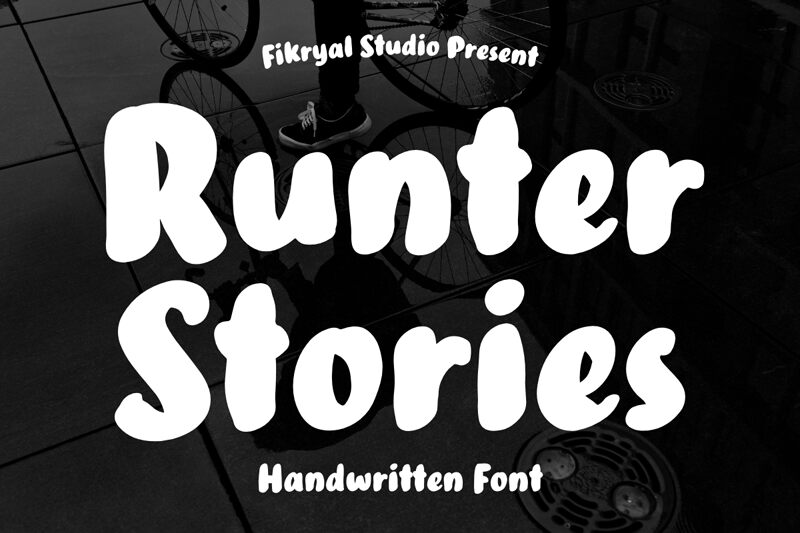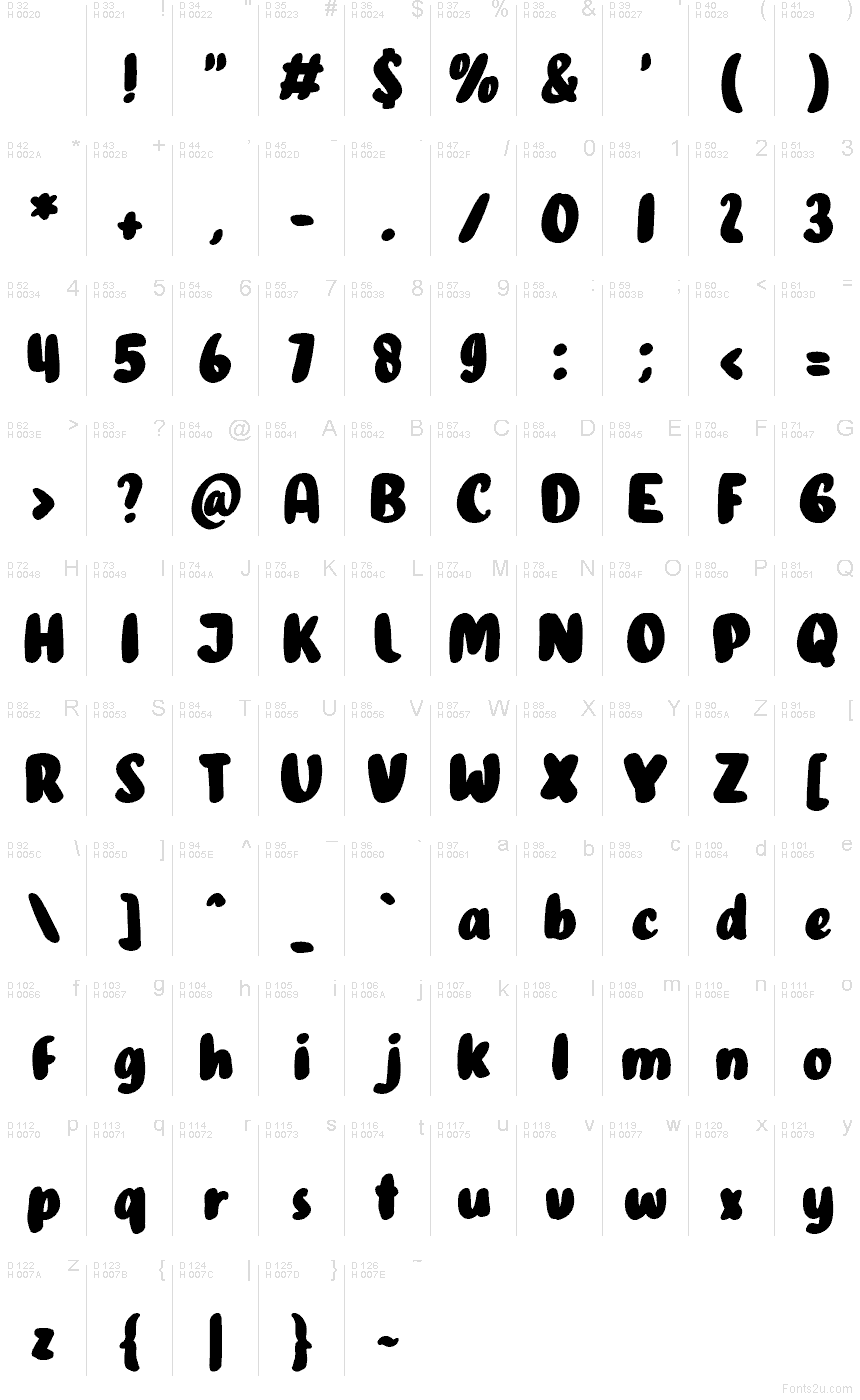
Runter Stories
Runter Stories font by Muhamad Fikry Nuralif of Fikryal Studio is a free comic font typeface with big, squishy curves and bouncy rhythm. The strokes feel like soft marker ink-bold, rounded, and a little mischievous-so words land with instant warmth instead of looking stiff. Its chunky silhouettes stay readable while still giving you that hand-drawn, storybook wink.
Using Runter Stories, you’ll get friendly energy on kids’ posters, classroom worksheets, comic panels, playful packaging, YouTube thumbnails, sticker designs, and casual café menus. This free font also works nicely for punchy social quotes when you give it a bit of breathing room and keep the tracking slightly open. Pair it with a clean geometric sans for body text so the headline stays loud and the layout stays tidy.